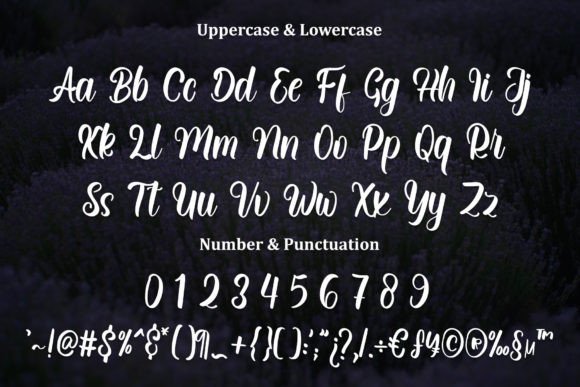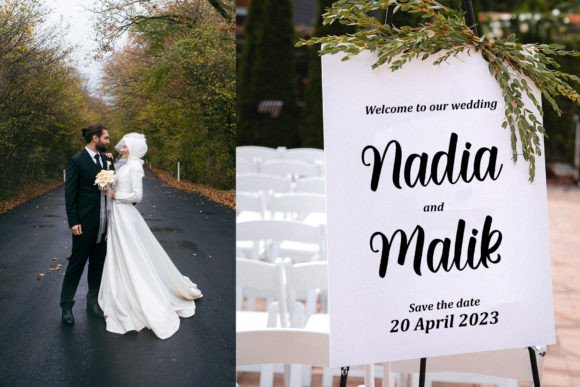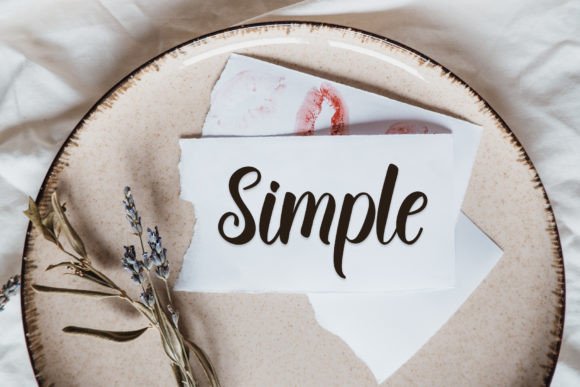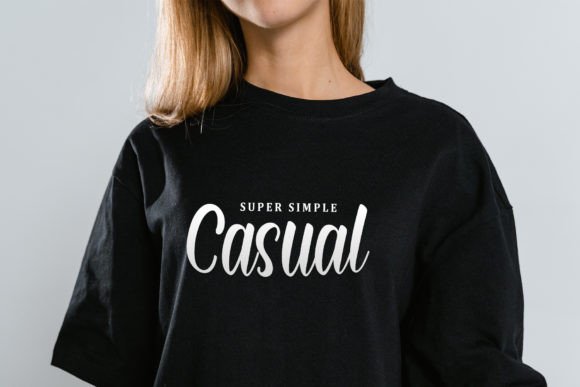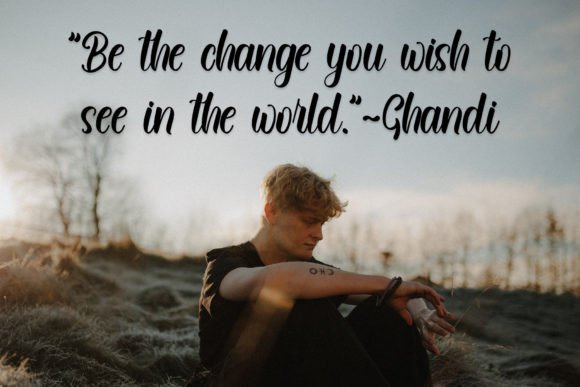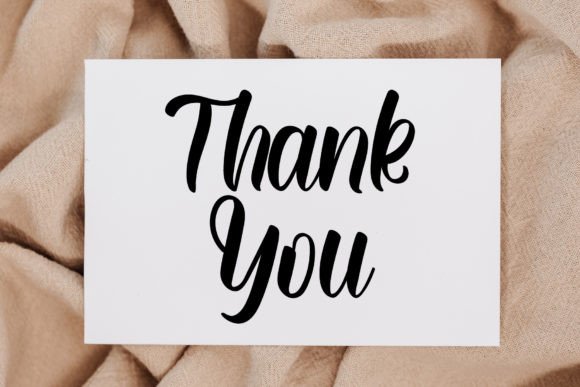
The Daisy Font: A Timeless Beauty for Your Design Projects
I’ll never forget the time I was working on a branding project for a boutique client, and I was struggling to find the perfect font to capture the essence of her elegant and sophisticated brand. I had tried countless fonts, but none seemed to fit the bill. That was until I stumbled upon the Daisy font. Its beautiful, handwritten curves and elegant touch instantly won me over, and I knew I had found the perfect fit. In this article, I’ll share with you why I’m obsessed with the Daisy font, its features, and how to use it to create stunning designs.
A Personal Review: What I Love About Daisy Font
The Daisy font is a neat and beautiful handwritten font that exudes an elegant touch, making it perfect for a wide range of design projects. Here are some things I love about it:
- ✨ Elegant and sophisticated: The Daisy font has a timeless quality that makes it perfect for projects that require a touch of elegance.
- ✅ Highly legible: The font is clear and easy to read, even at small sizes.
- 💫 Versatile: The Daisy font can be used for a wide range of projects, from branding and packaging to wedding invitations and social media graphics.
While the Daisy font is amazing, it’s not perfect. Here are a few things to keep in mind:
- ⚠️ Overuse: While the font is beautiful, it can be overused. Be sure to use it sparingly to avoid overwhelming your design.
The Backstory of Daisy Font
The Daisy font was designed by a talented typographer who wanted to create a beautiful and elegant handwritten font that would capture the essence of timeless design. Inspired by classic calligraphy, the Daisy font features beautiful curves and elegant touches that make it perfect for a wide range of design projects.
| What is the Daisy font? | The Daisy font is a beautiful and elegant handwritten font perfect for a wide range of design projects. |